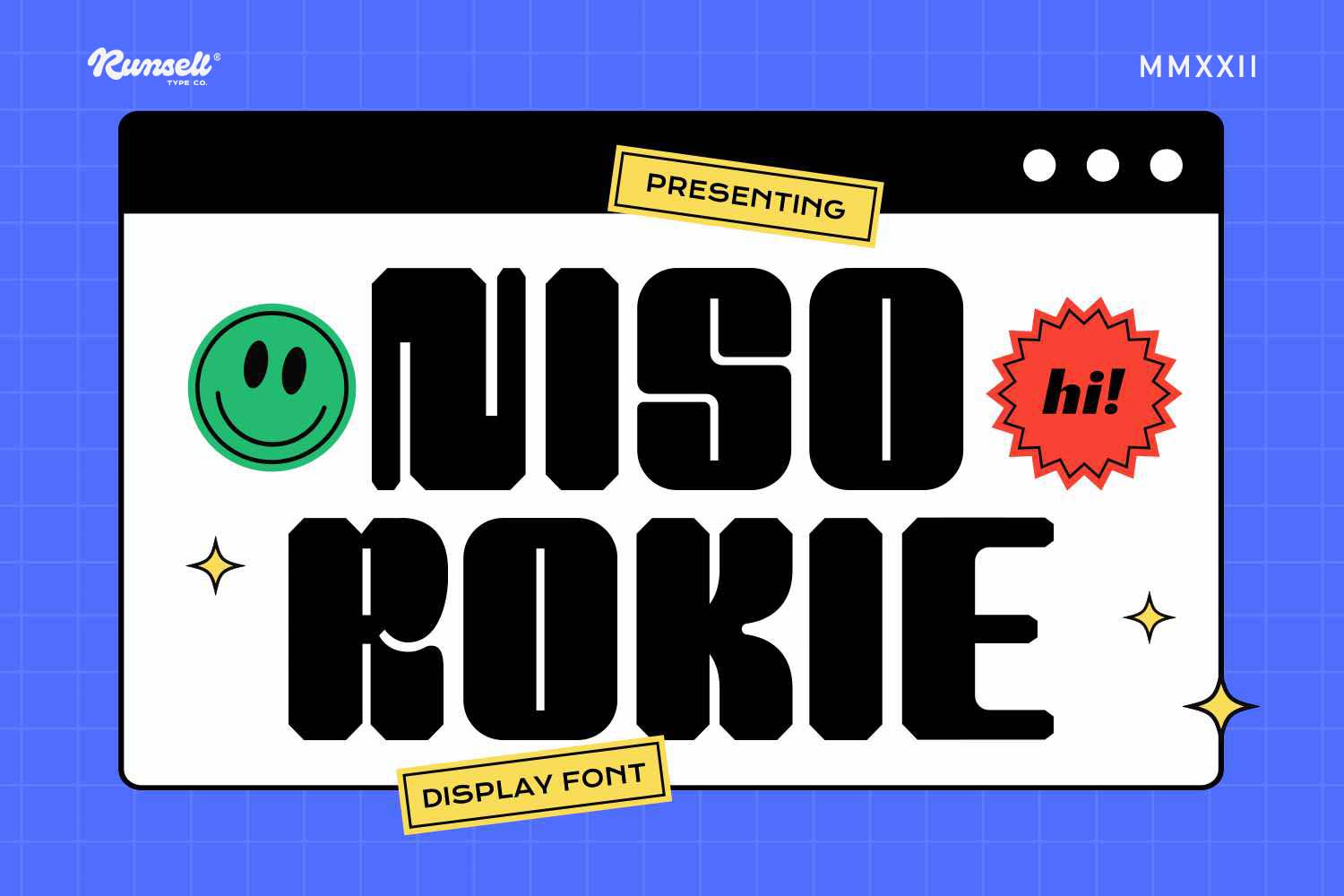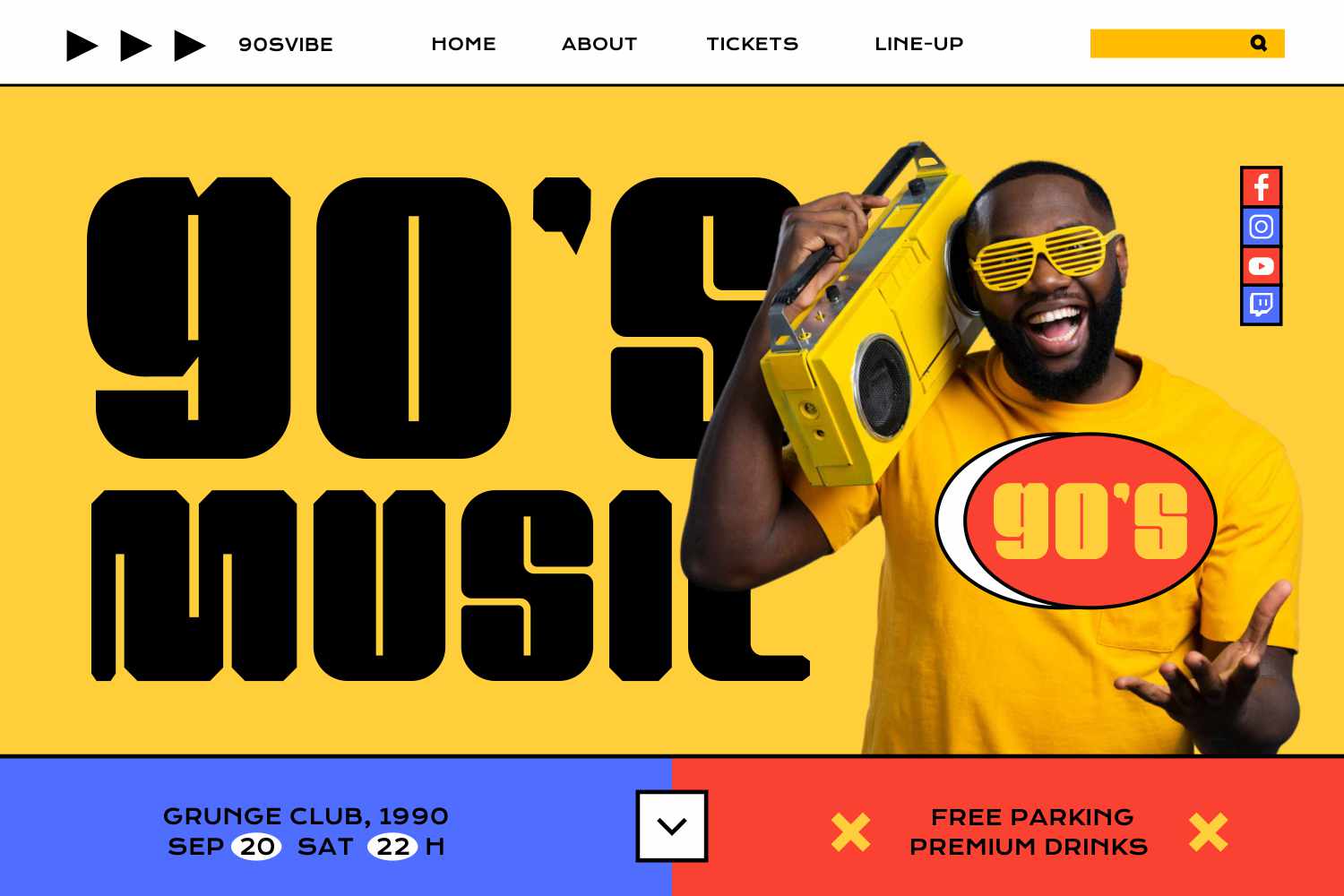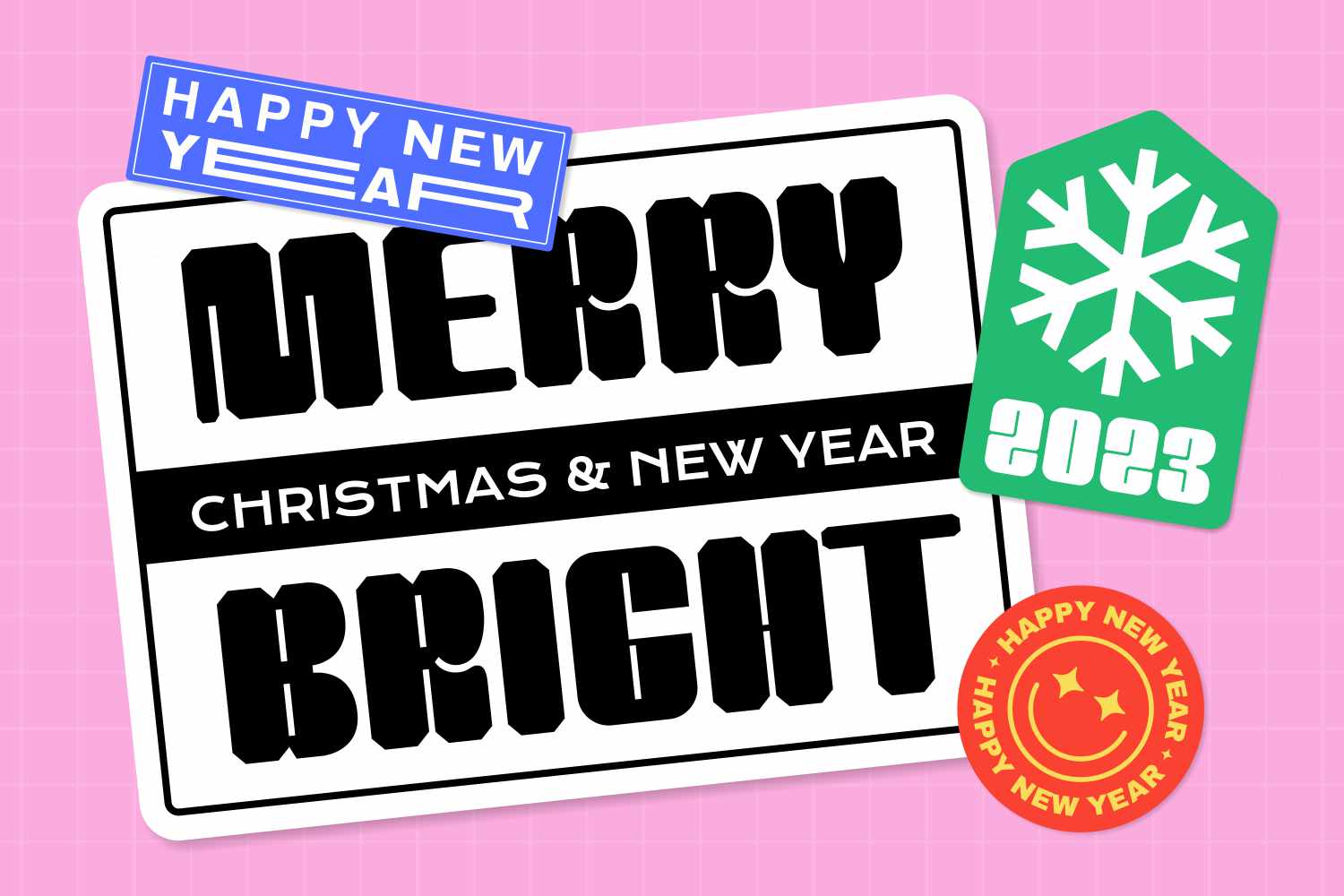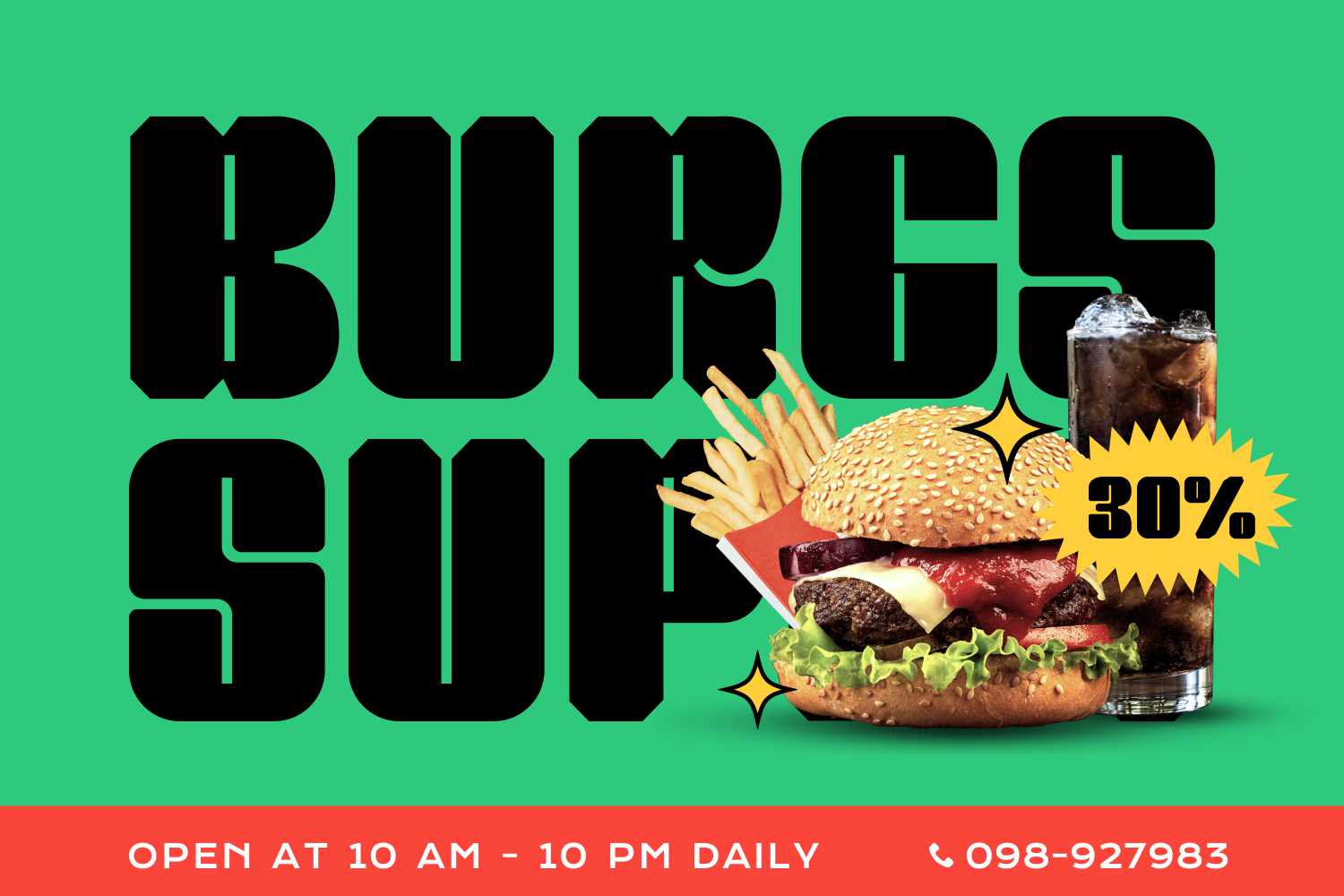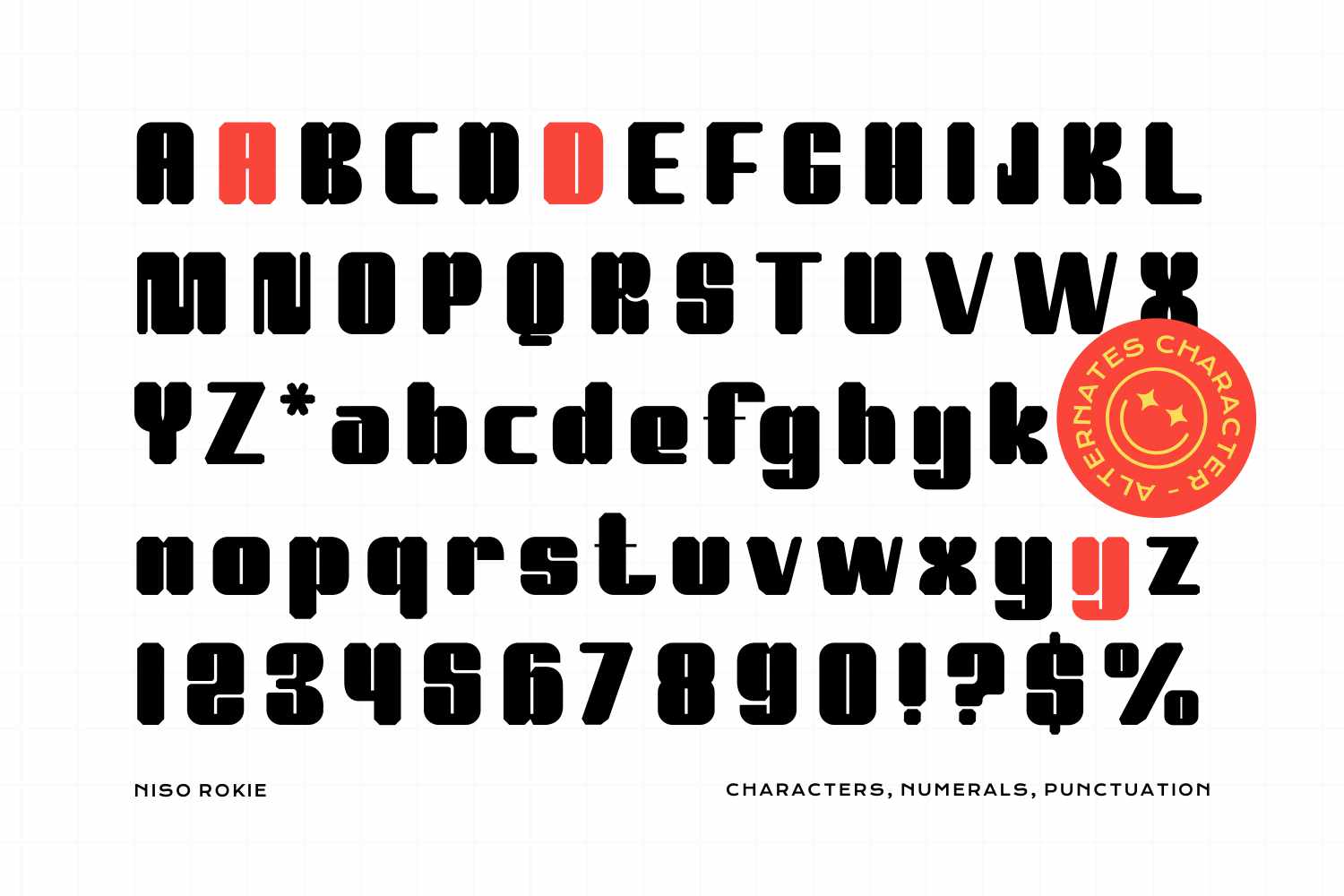
Niso Rokie is a bold and energetic display font inspired by retro aesthetics with a modern twist. Its chunky, geometric letterforms with sharp corners and playful alternate characters make it a perfect choice for eye-catching designs. Whether you’re designing for 90s-style posters, party invitations, or digital content, Niso Rokie adds an unmistakable personality and charm.
With its all-caps structure, alternates, and extensive punctuation support, this typeface brings impact to headlines, branding, or advertising visuals. Niso Rokie is especially suitable for food promotions, music event posters, streetwear branding, or any project that wants to radiate confidence, nostalgia, and fun.